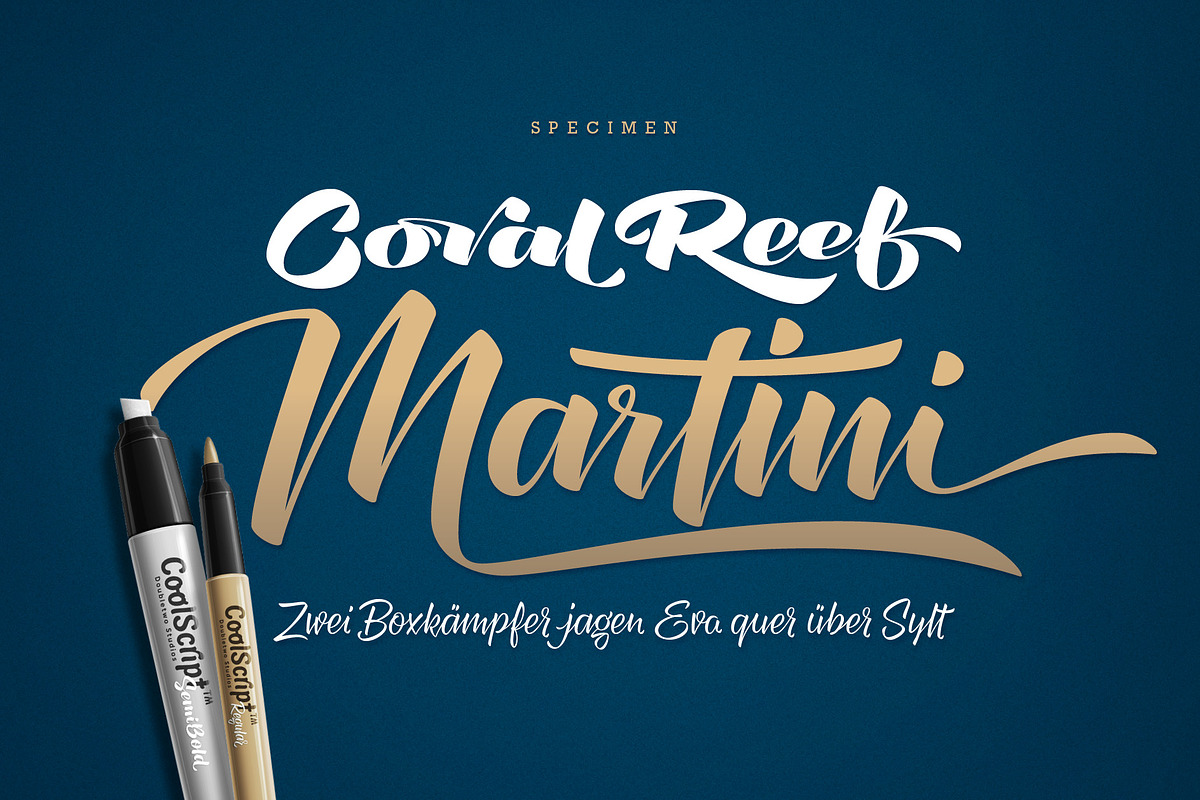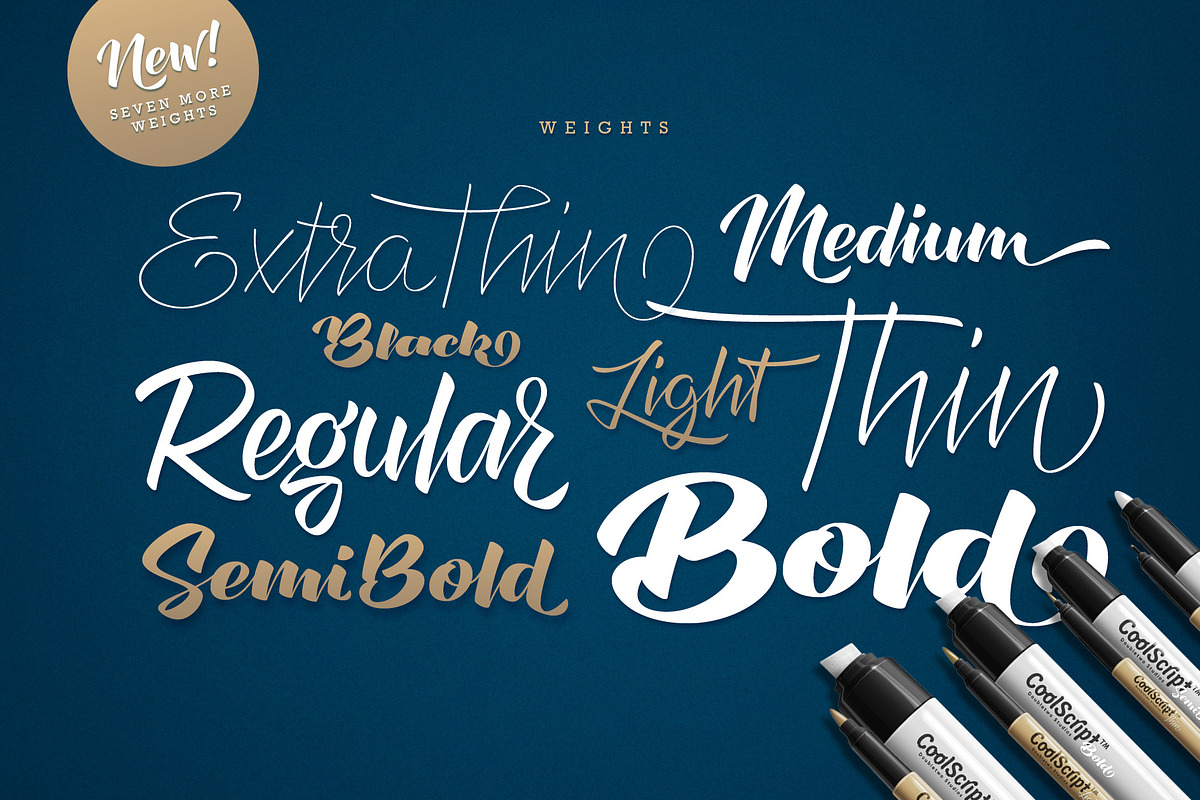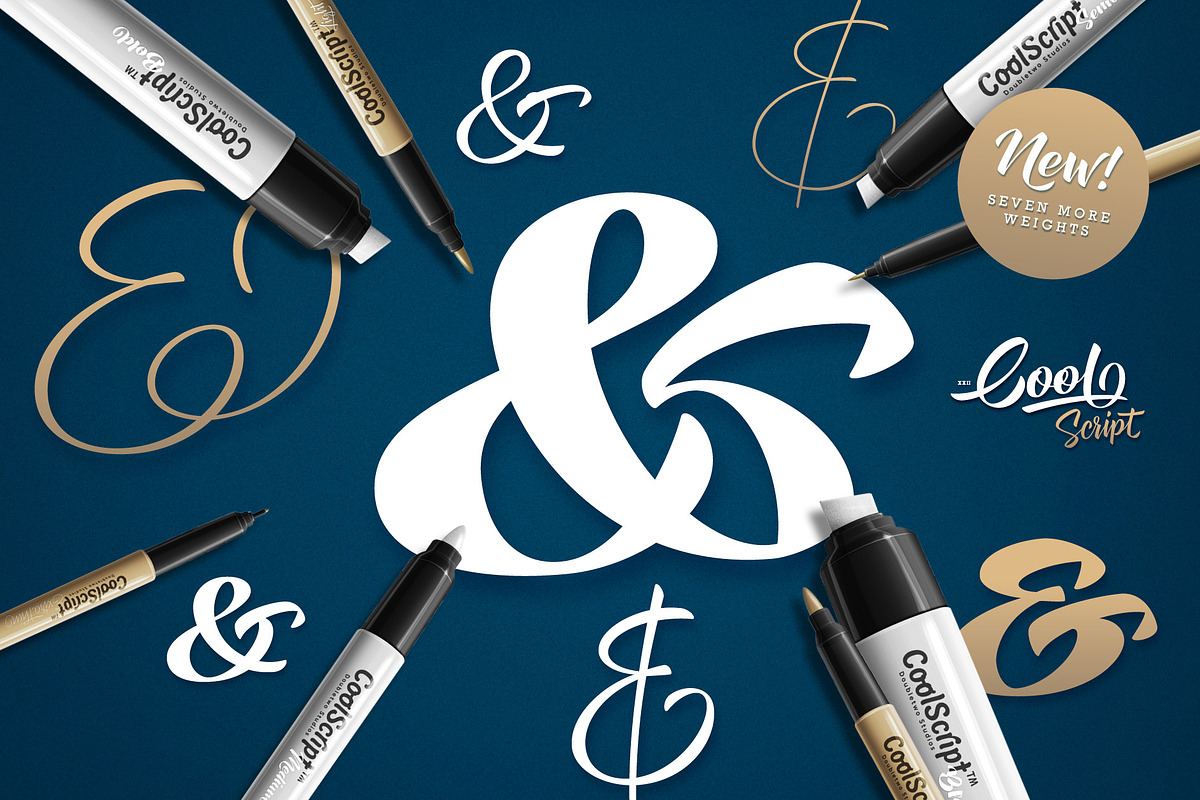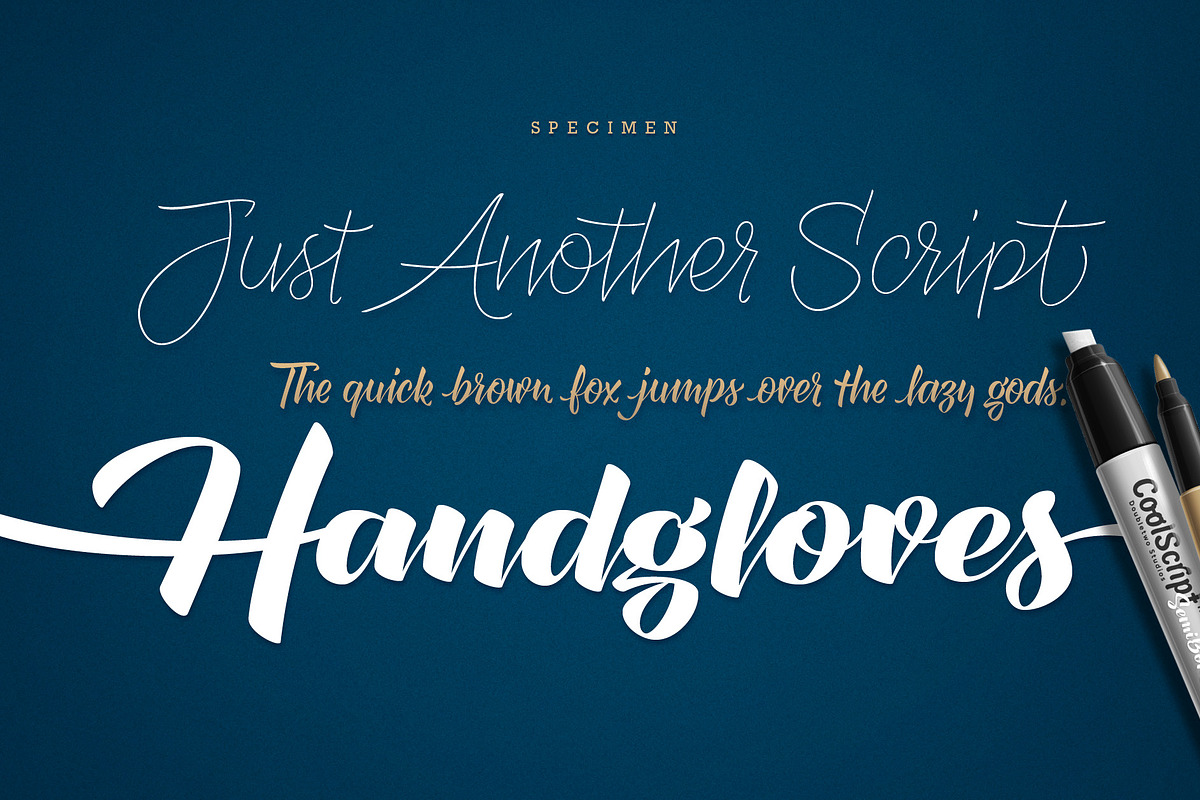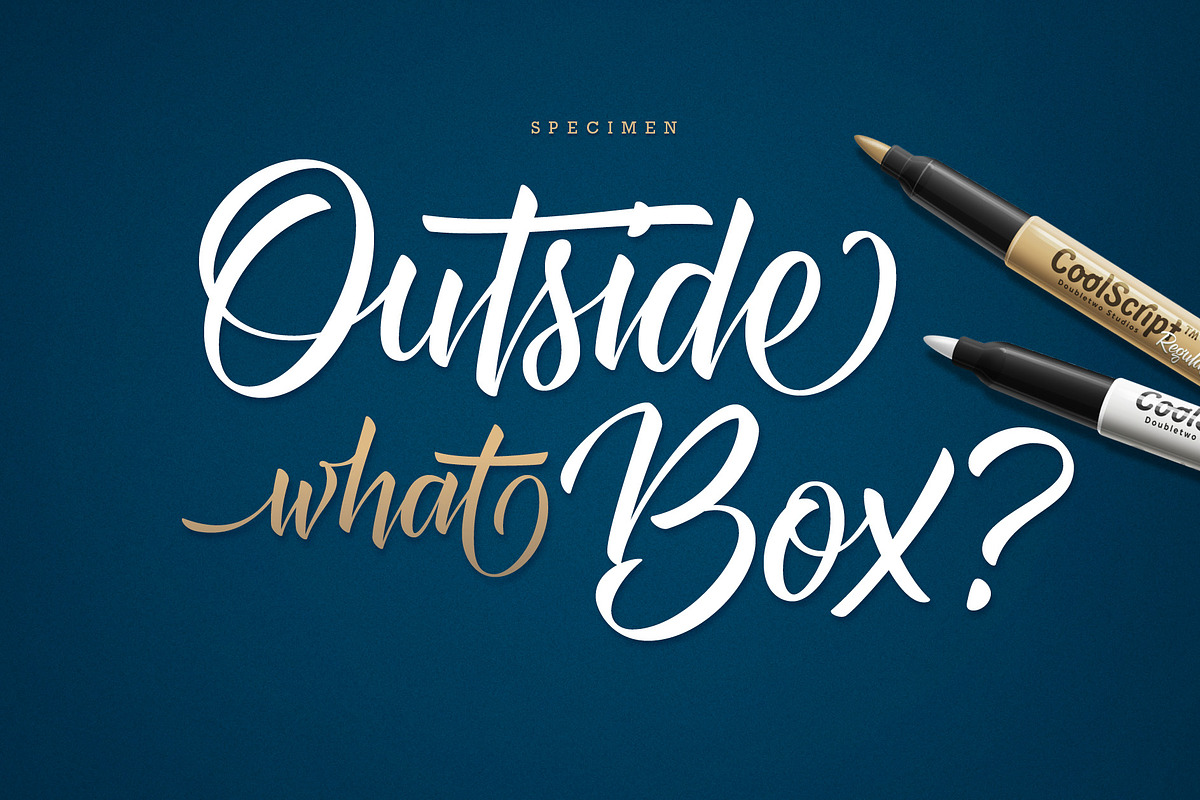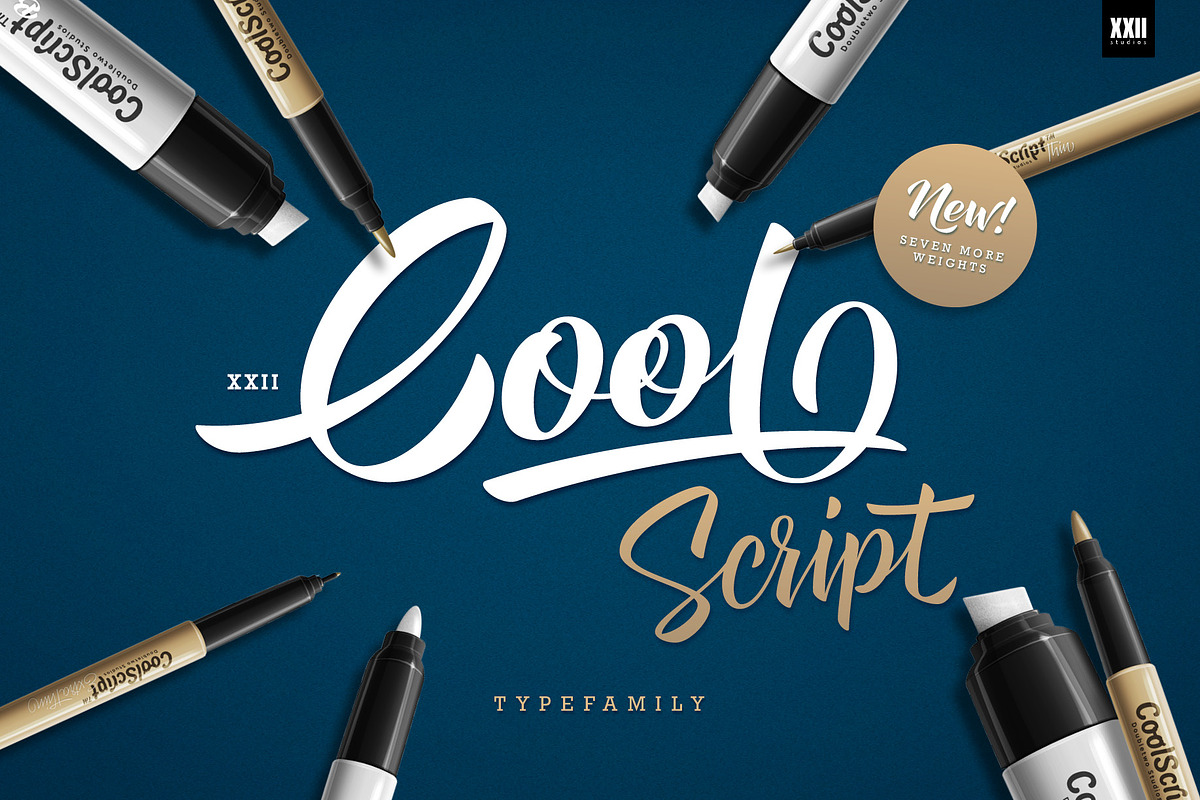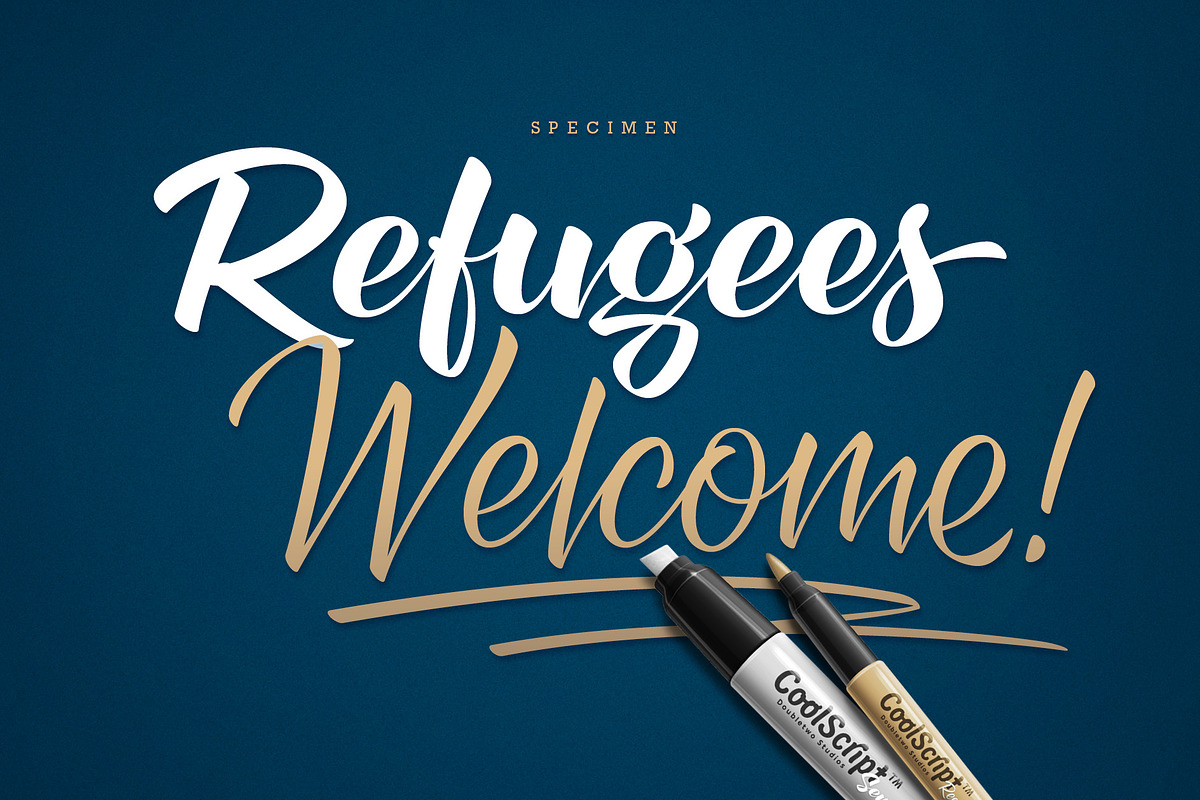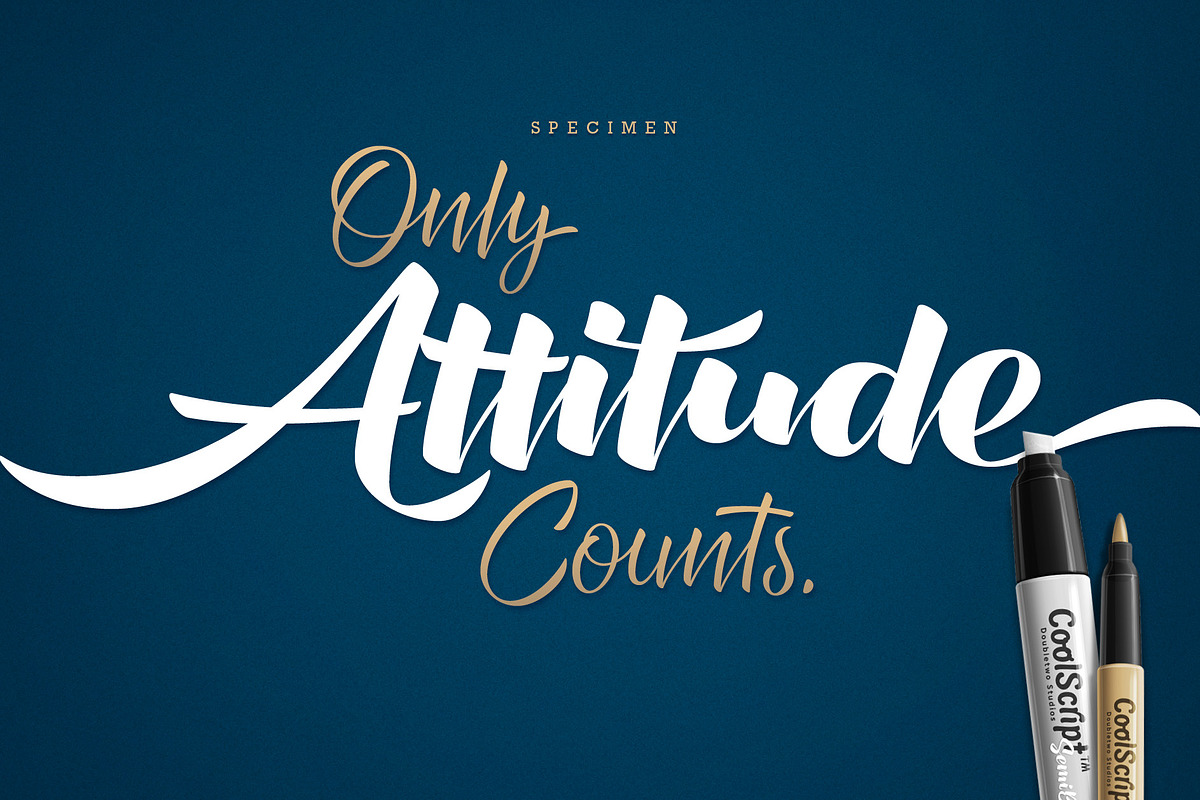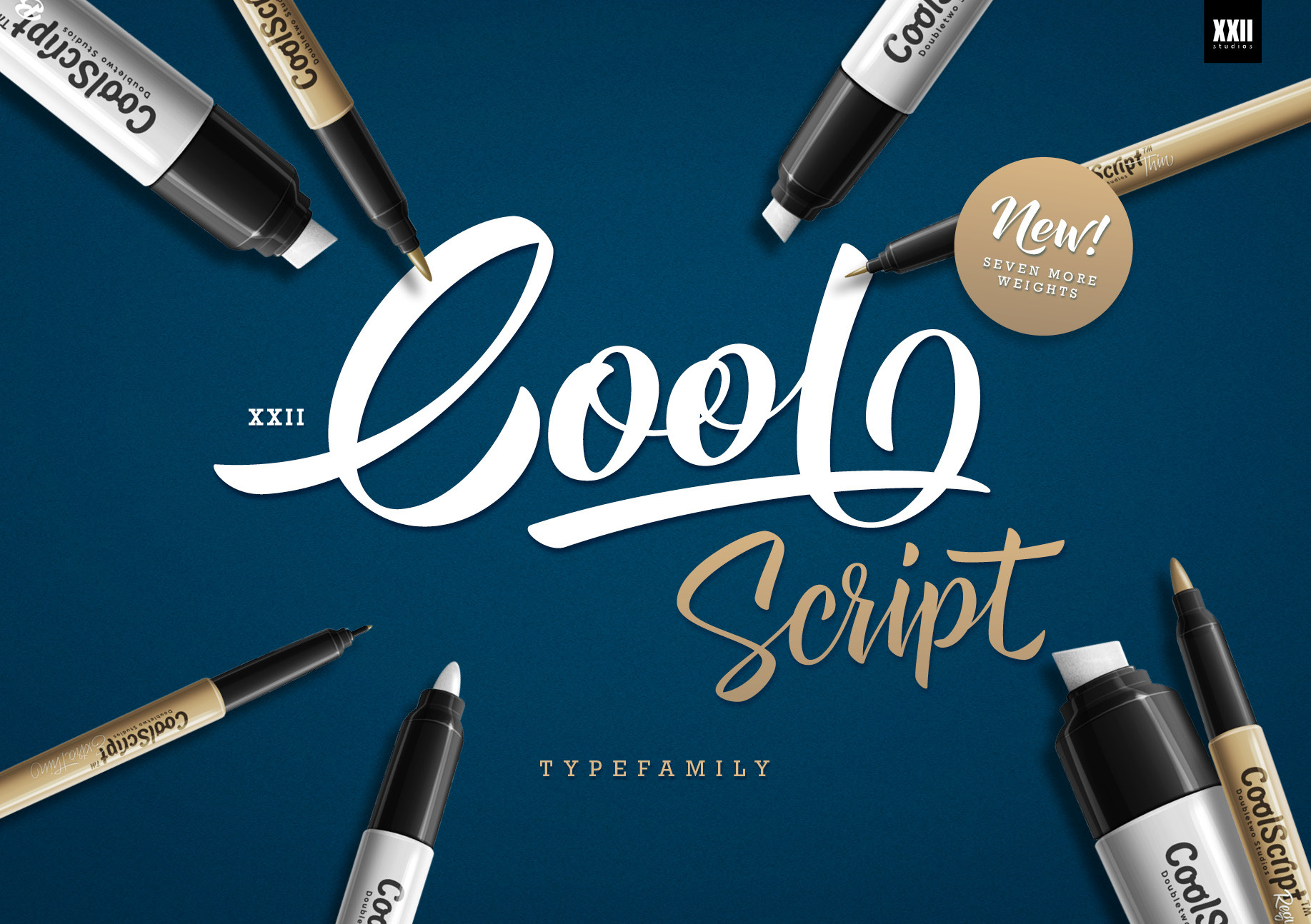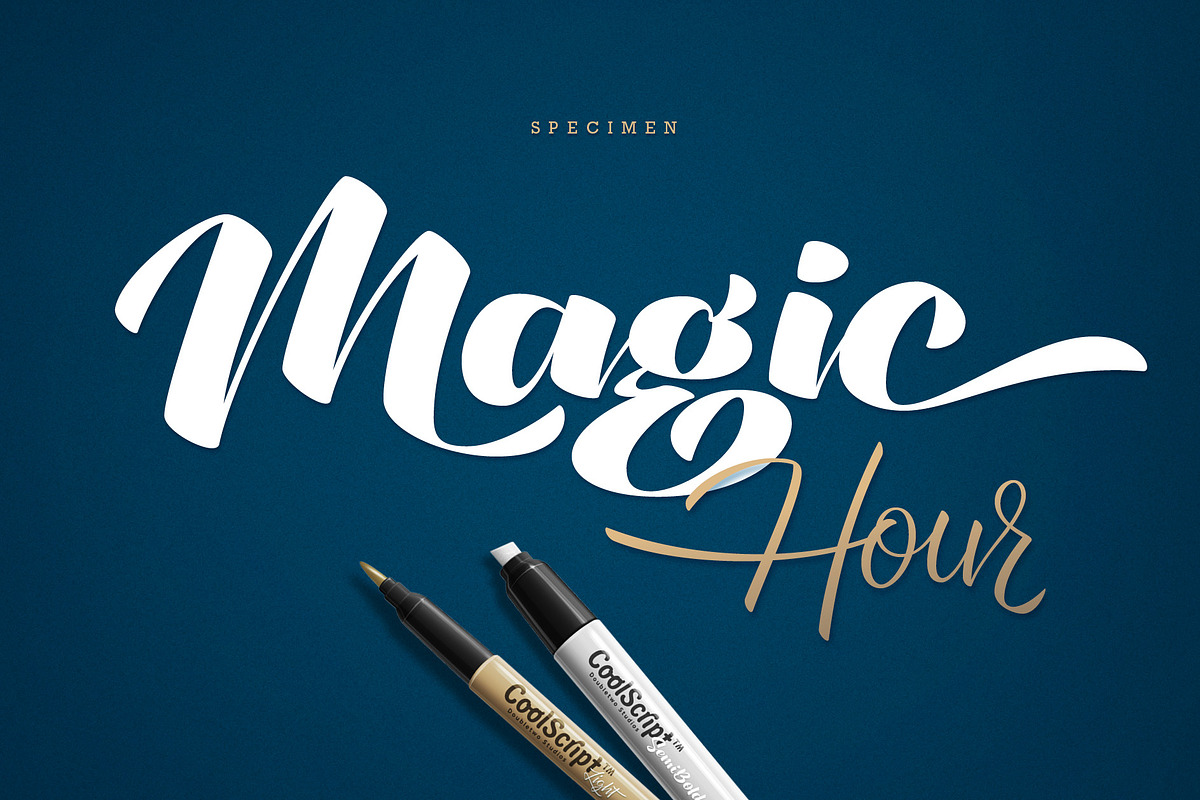
XXII CoolScript - Font Family
XXII CoolScript
MAJOR UPDATE This is a big update of XXII CoolScript. First of all, from now it’s a whole family with 7 new weights from ExtraThin to Black. It comes with more than hundred additional glyphs, some more alternates, ligatures, numerals and fitting opentype features for fractions and two extra ampersands.
This lovely script font by Lecter Johnson is another, more soft and round one in the series of Doubletwo Studios’ script fonts (XXII YeahScript, XXII AwesomeScript). Its wonderfully designed letters, ligatures and alternates may bring a charming and individual handwritten look to your creation. This font is designed to easily create logos, headlines and text phrases within a blink of an eye. Just open your glyphs-palette* and simply chose, from up to 27 (!) different alternates and variations per glyph, the one that fits best for your needs.
INCLUDED STYLES: ExtraThin, Thin, Light, Regular, Medium, SemiBold, Bold, Black.